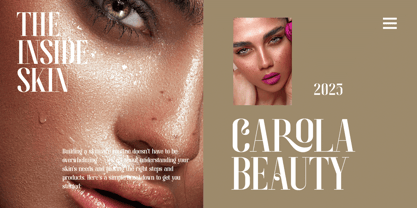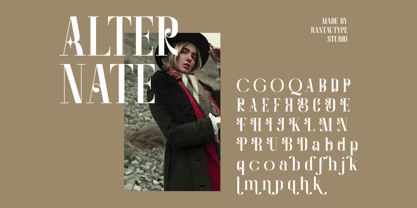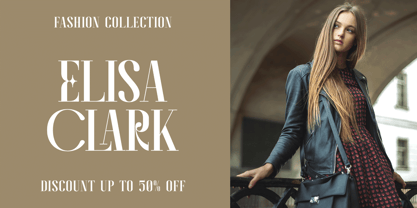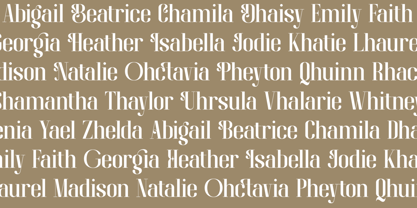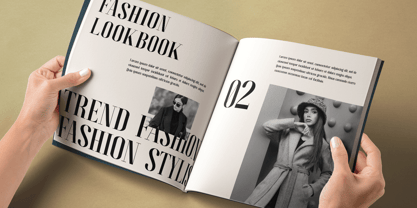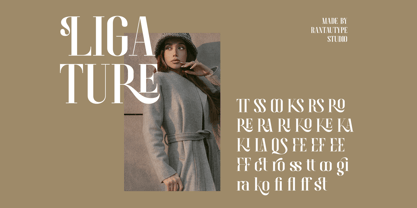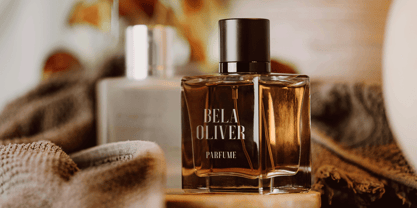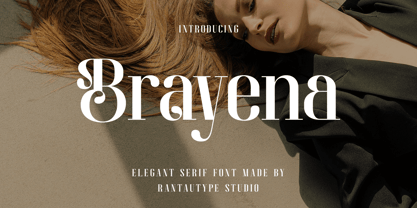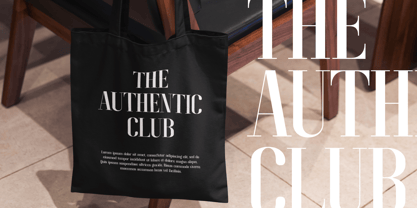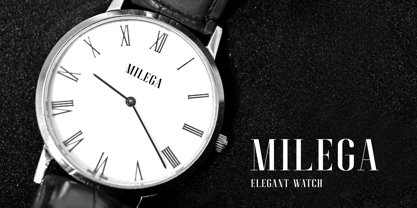
Brayena
by RantauType
The Brayena Font Family was designed by Yudi Pratama Chandra and published by RantauType. Brayena contains 2 styles and family package options. More about this family
Brayena is elegant serif with delicate curves, high contrast strokes, and refined serifs, this font captures the soul of classic beauty. Each letterform is sculpted with intention—soft yet sophisticated, confident yet romantic.
Brayena is a perfectly choice for any creative endeavor, chic, lifestyle design such as logotype, advertisements, watermark on photography, stationery, branding project, display and magazine, invitation, corporate brand, product design, label, business project and many other project with modern touch.
• Ligature and alternate